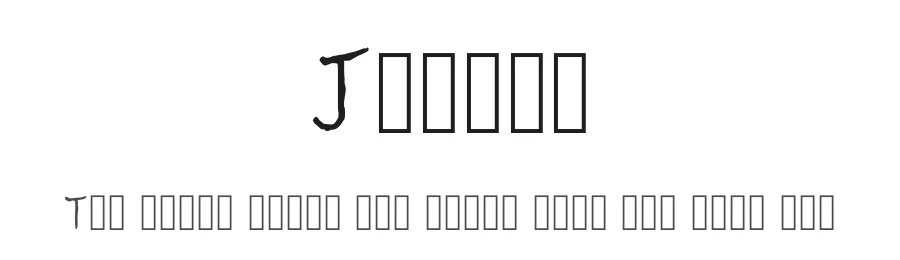
About Wanderlust Typewriter Font
A FUNKY TYPEWRITER FONT.
NOT ALL WHO WANDER ARE LOST.
Wanderlust Typewriter Font is a decorative font that shines as a display or heading face. Pair it with a clean sans-serif or serif font for body text β the contrast creates a clear hierarchy while the two styles stay balanced and easy to read.